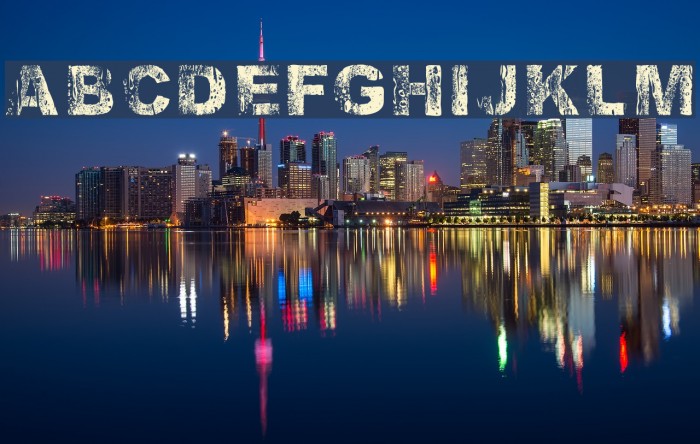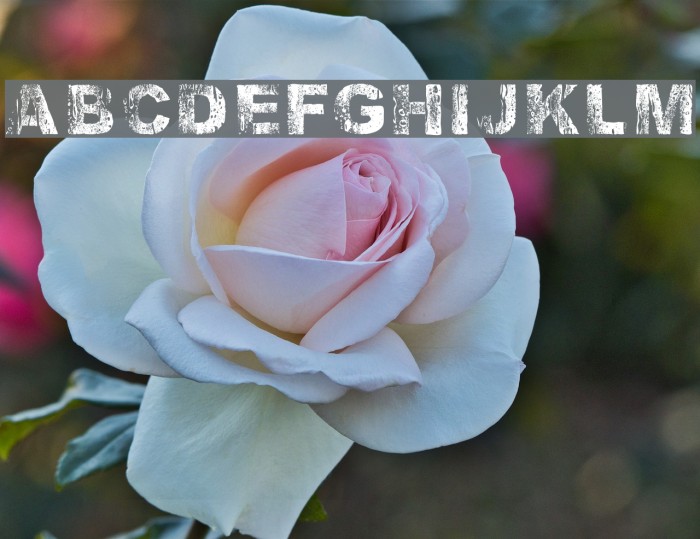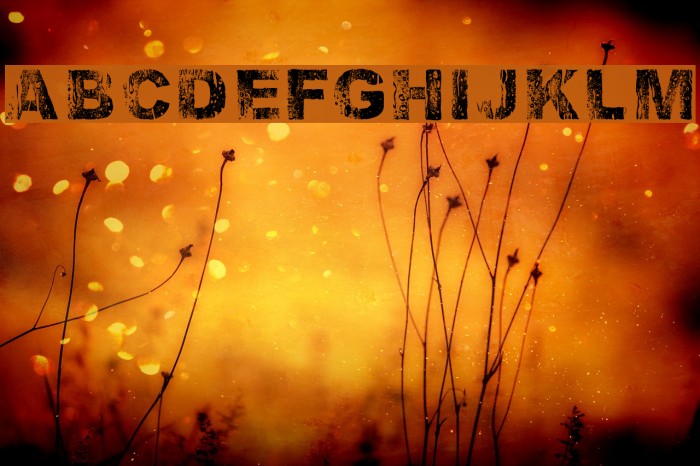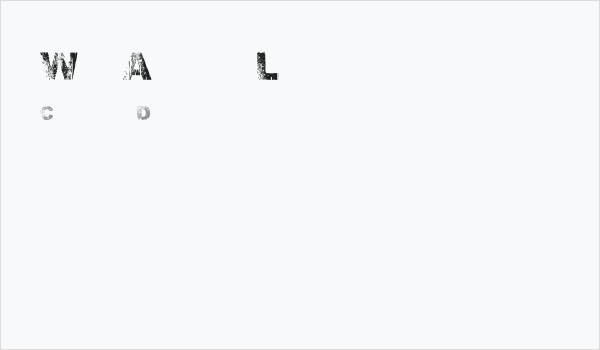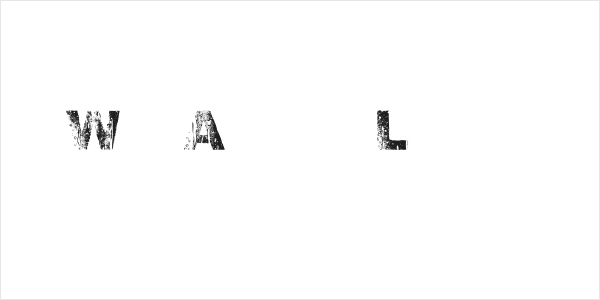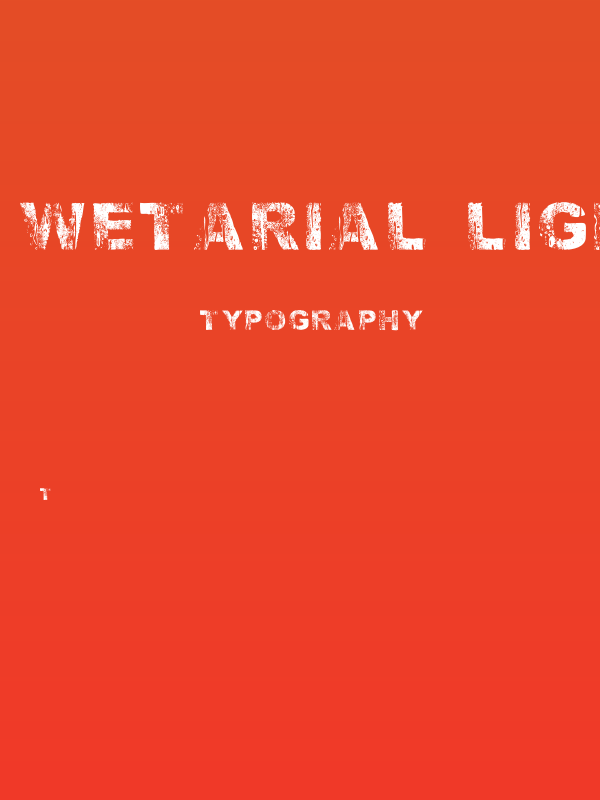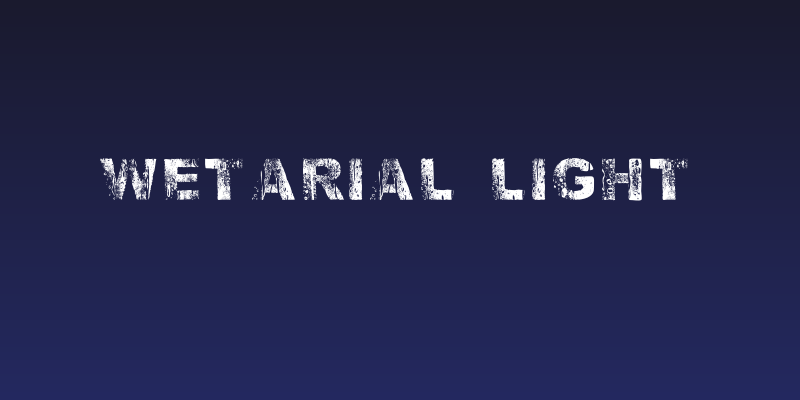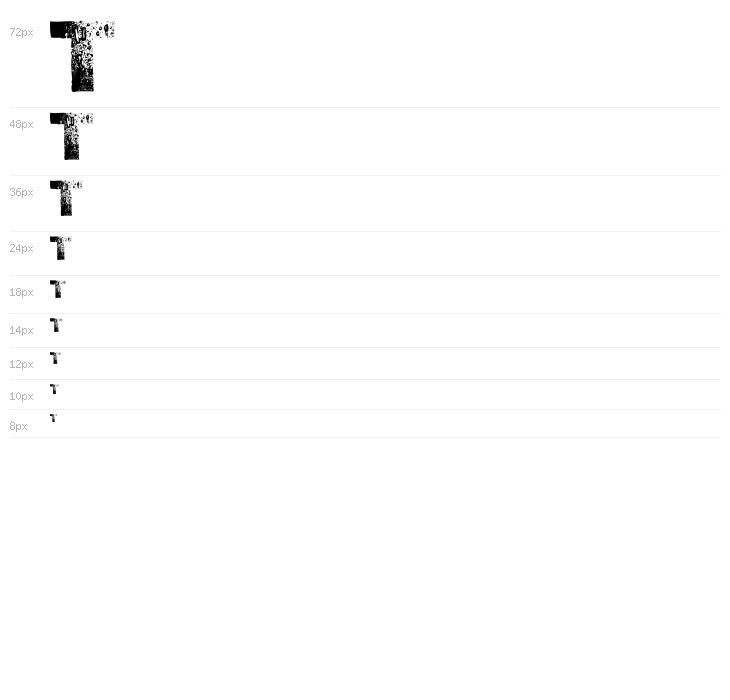
WetArial-Light Font
WetArial-Light Description
This font features a distressed, textured appearance that gives it a rugged and worn look. The uppercase letters are bold and impactful, with a rough, weathered texture that suggests a sense of age and history. Each character appears as if it has been eroded or stamped, creating a unique visual effect that is both eye-catching and distinctive. The style is reminiscent of vintage or industrial design, making it suitable for projects that require a bold statement or an edgy aesthetic. The texture adds depth and character, making it ideal for use in creative and artistic contexts.
| Proposed Projects | Ideal for posters, album covers, branding, and any design requiring a vintage or industrial feel. |